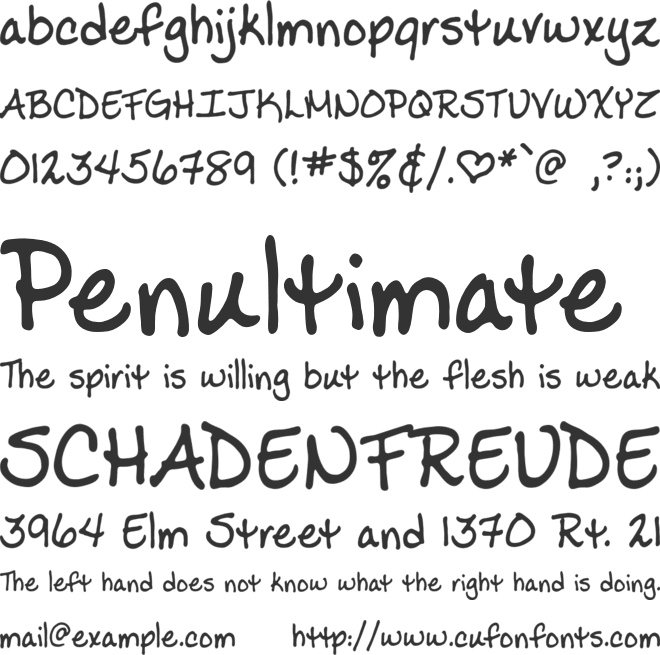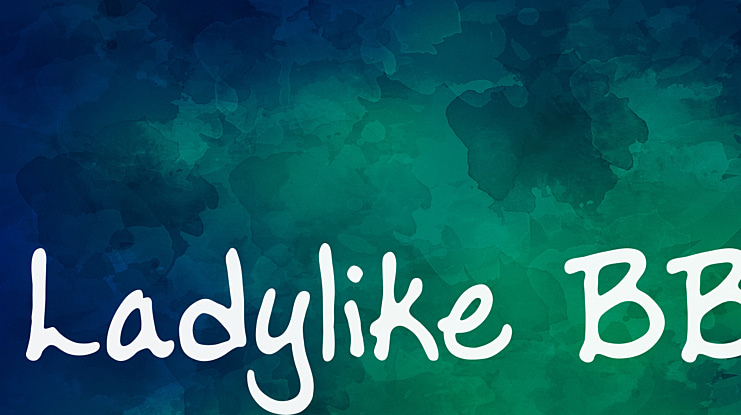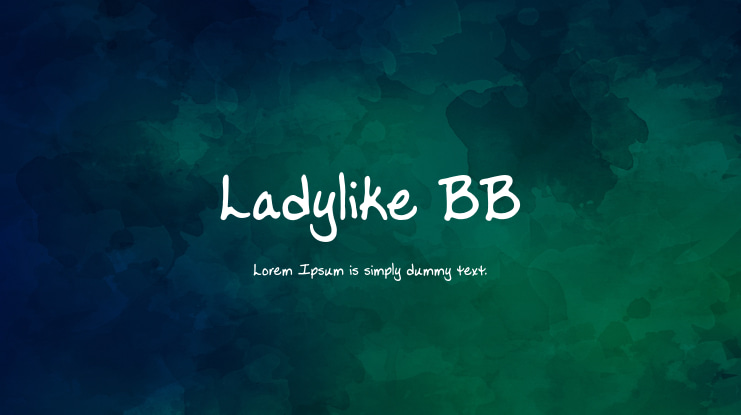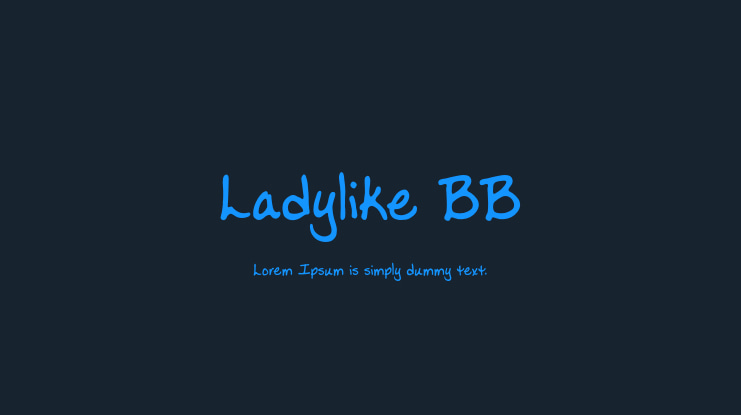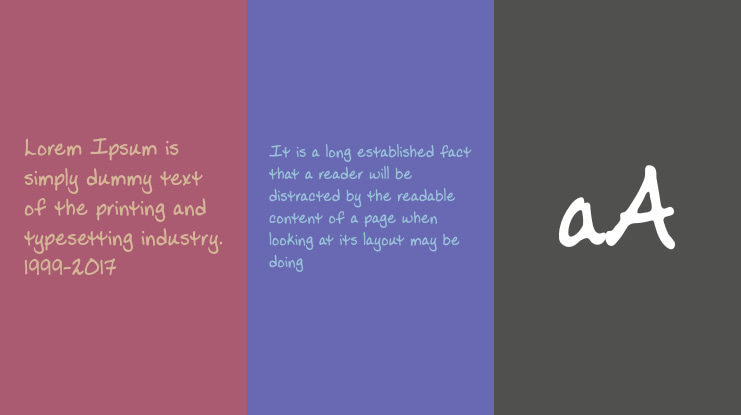
Ladylike BB Font
Co-designed by my wife for an upcoming project, LADYLIKE is a feminine upper/lowercase font with a bouncy, natural feel. (When in doubt, enlist the spouse!) The "|" key is the heart, and there is an opentype autoligature to make the smiley face by typing :)